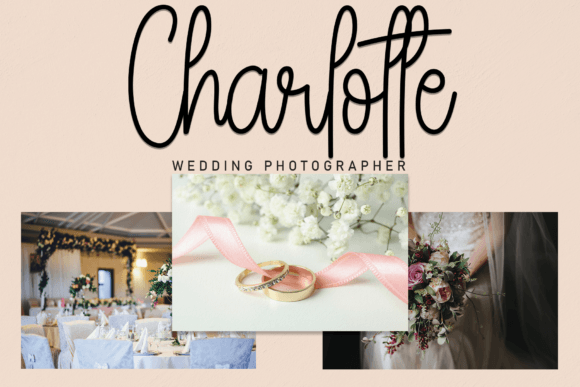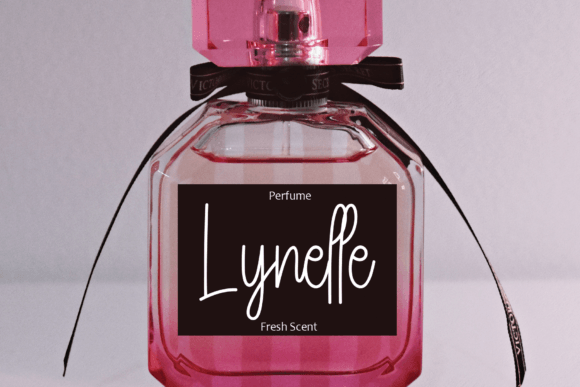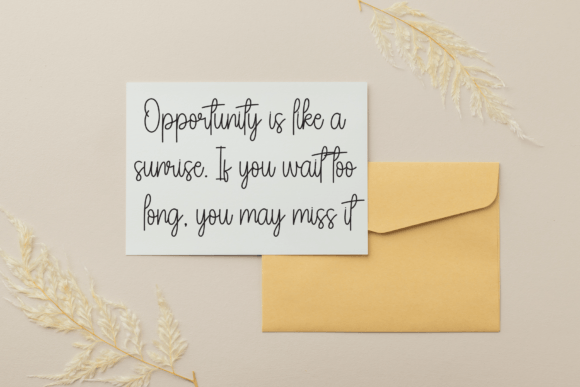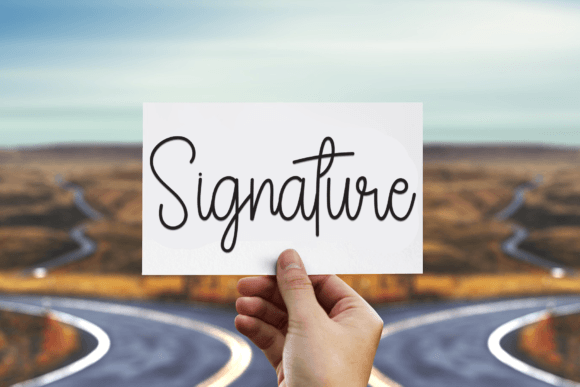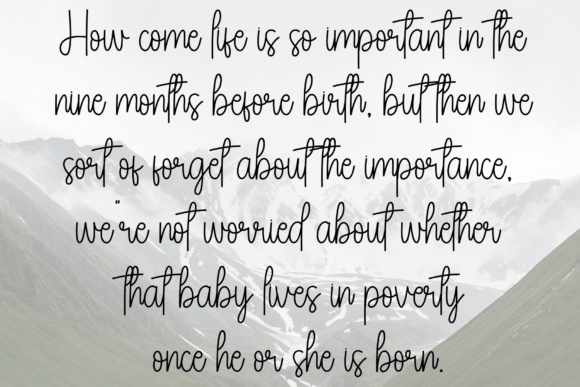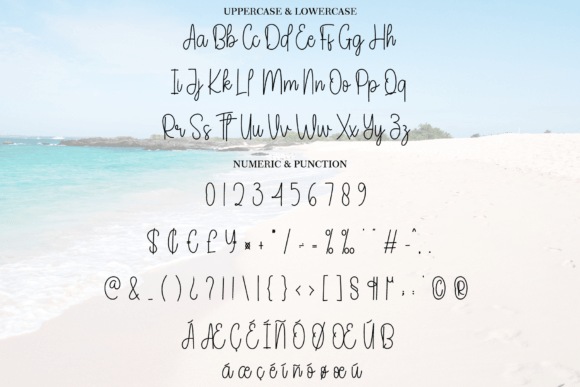
Introduction to Kuta Beach Font
Have you ever been stuck on a creative project, staring at a blank page, trying to decide on the perfect font to bring your vision to life? It’s a feeling we’ve all been there, designers and non-designers alike. But what if you could find a font that not only complements your design but also adds a touch of personality to it? Enter the Kuta Beach Font, a sweet and friendly handwritten font that’s sure to make your creative project stand out.
Key Features of Kuta Beach Font
- Large character set, including uppercase and lowercase letters, numbers, and special characters, making it suitable for a wide range of creative projects.
- Designed with a modern and beach-inspired aesthetic, perfect for projects related to travel, leisure, or tropical themes.
Honest Review: Kuta Beach Font
- ⚠️ Limited font styles and variations, which may not be suitable for all design projects
- ⚠️ Not ideal for long blocks of text due to its decorative nature
Is the Kuta Beach Font suitable for large-scale designs?
Yes, the Kuta Beach Font is designed to be highly scalable, making it suitable for use in large-scale designs, such as billboards, posters, and signage. The font’s high quality and clear typography ensure that it remains legible and visually appealing even at very large sizes.